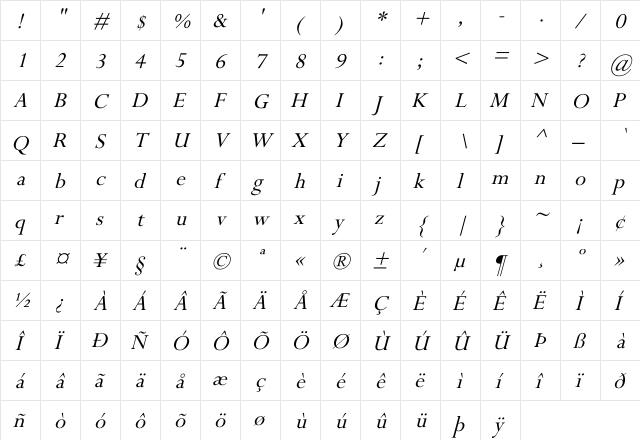
Perpetua Italic Italic
Design Context for Perpetua Italic Typeface
Perpetua Italic takes a measured approach to typography — its balanced proportions and neutral character make it a reliable workhorse for both digital and print work. Its italic angle brings a sense of urgency and motion to the letterforms.
Pro Tip: Try Perpetua Italic for annotation and caption copy alongside an upright companion — the contrast in angle creates a dynamic but ordered typographic system.